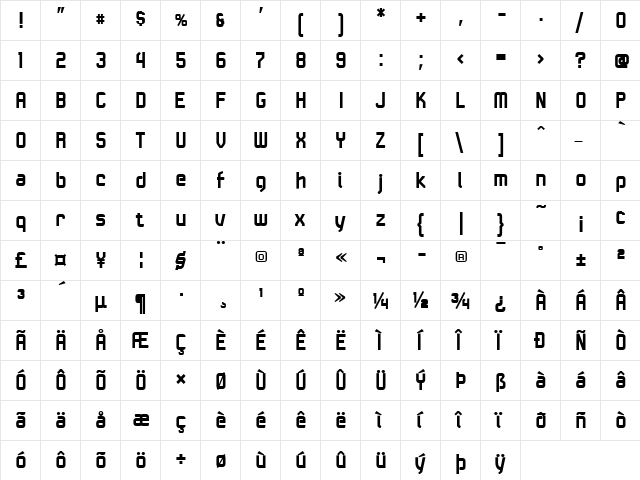
LinotypeKaliber Bold
Bold · Linotype Library GmbH or ist affiliated Linotype-Hell companies  ·
Design Context for LinotypeKaliber Typeface
LinotypeKaliber is a composed and adaptable typeface that performs quietly and consistently across a wide range of design contexts. Its bold stroke weight gives it real presence on the page.